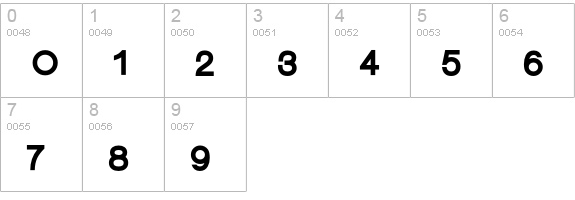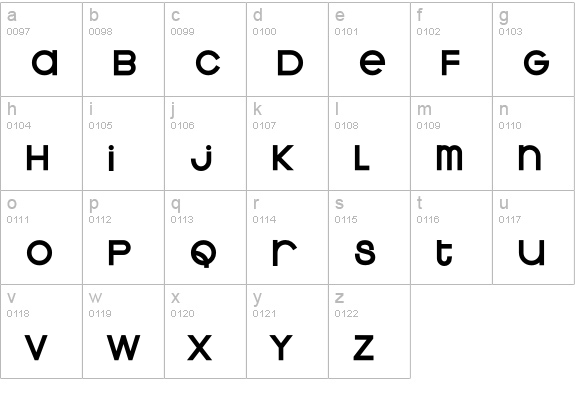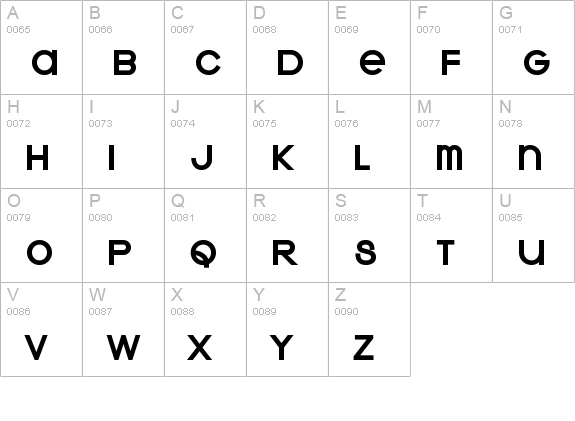
KravitzExtraThermal Font Details
KravitzExtraThermal font is a bold and eye-catching display typeface designed to make a statement. With its unique and futuristic design, this font is perfect for adding a touch of modernity to any project. The extra thermal effect gives it a distinctive look that sets it apart from other fonts. Best of all, KravitzExtraThermal font is available for free download at FontsMarket.com. Whether you're looking to create striking headlines, posters, or branding materials, this font will add a dynamic element to your design. Don't miss out on the opportunity to enhance your projects with this standout typeface, now freely accessible for all your creative needs.